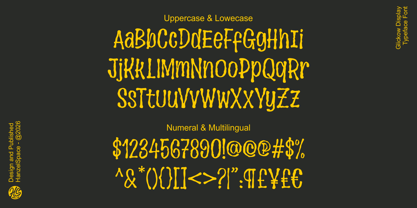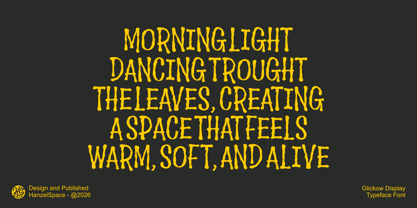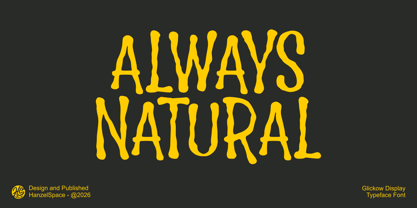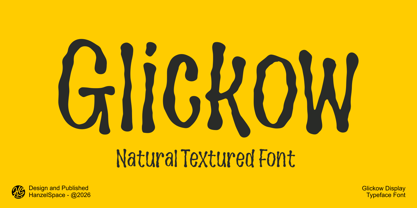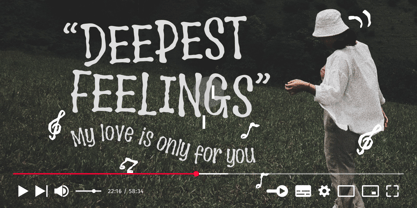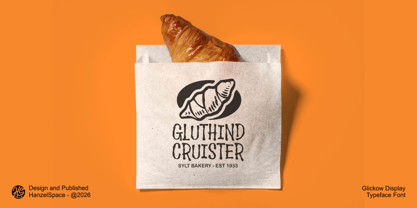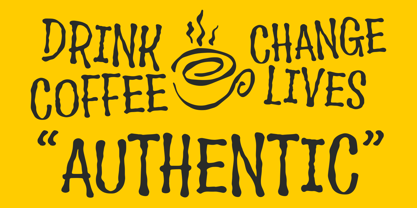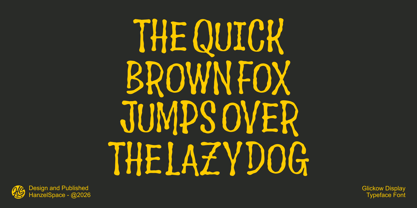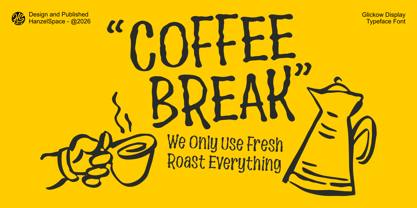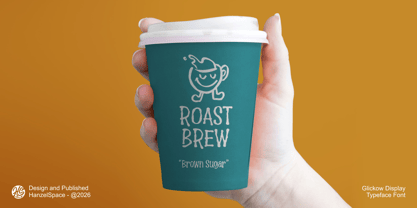
Glickow
La famille de polices Glickow a été conçue par Hanief Farandi et publiée par Hanzel Space. Glickow contient 1 styles. En savoir plus sur cette famille
The "Glickow" font features a natural, wavy style, yet each letter has a unique character, created with a handwritten touch. This font is perfect for your business design needs, including branding, logos, product packaging, quotes, posters, and more.
Features:
• Uppercase & Lowercase
• Numerals & Punctuation
• Multilanguage Supports